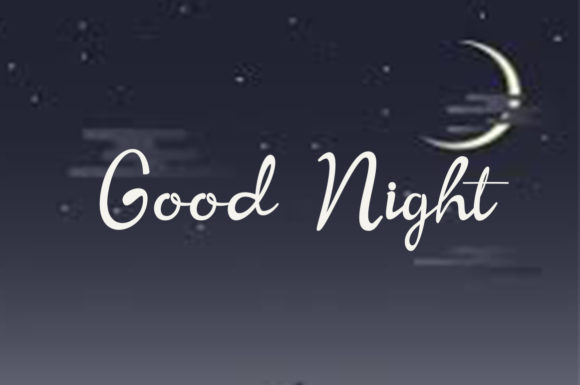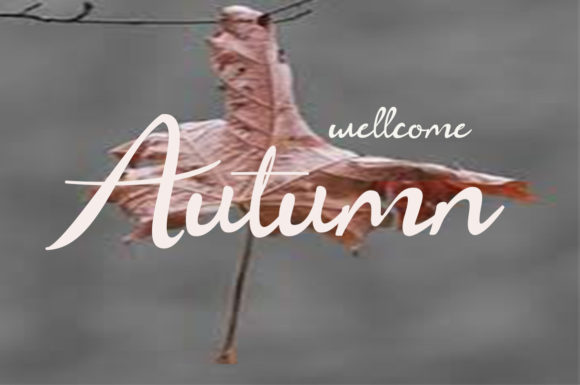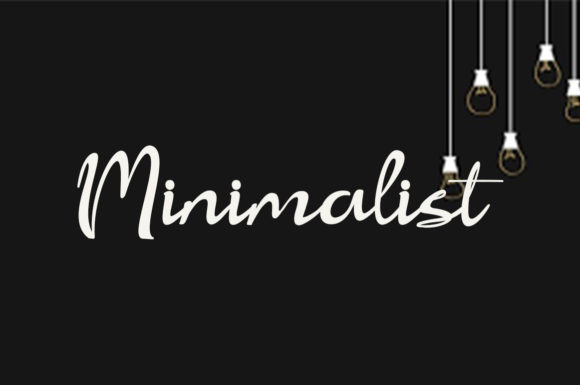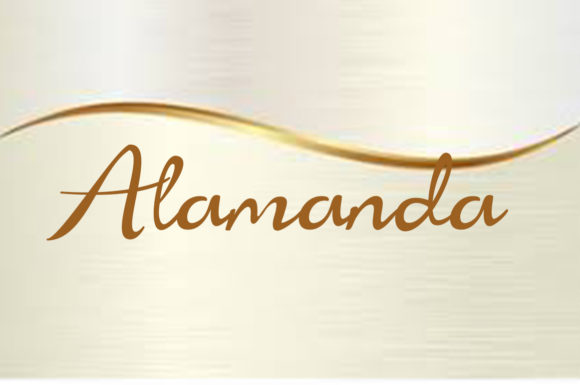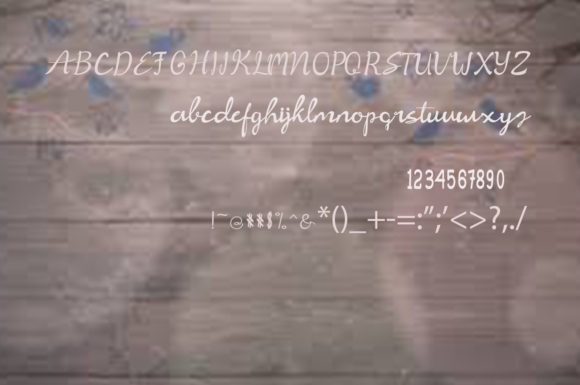
Discover the Sweet Charm of Camellia Font
Have you ever found yourself lost in the creative process, pouring your heart into a design, only to feel like something is missing? The perfect font can make all the difference. For designers, the right typography can elevate a project from ordinary to extraordinary.
That’s where the lovely Camellia Font comes in. This cursive script font is designed to add a touch of sweetness and elegance to any creation. With its dainty and refined style, Camellia Font is the perfect choice for designers looking to create beautiful and eye-catching designs.
Whether you’re a seasoned designer or just starting out, the Camellia Font is a valuable addition to your toolkit. Its versatility and charm make it a popular choice among designers, and it’s easy to see why. With the Camellia Font, you can create stunning designs that are sure to impress.
Camellia Font Key Features
- Font Family: Camellia, Camellia Bold, Camellia Italic, Camellia Bold Italic
- Unique Characteristics: Elegant, refined, and classic design with a hint of Asian influence, making it perfect for formal and sophisticated projects
- Language Support: Multilingual support for languages that use the Latin, Cyrillic, and Greek alphabets
Designer Review: Camellia Font
Overall, I’d say Camellia Font is a beautiful addition to any designer’s toolkit. Here are a few things that really stand out to me:
- ✨ The elegant, cursive script makes it perfect for creating a sense of luxury and sophistication in branding materials, such as logos and business cards.
- ✨ The numerous ligature options allow for a high degree of customization, making it a great choice for designers who want to add a unique touch to their projects.
- ✨ The font’s versatility means it can be used in a wide range of contexts, from formal invitations to playful signage.
- ⚠️ The font may be a bit too ornate for some projects, potentially overwhelming the viewer with too much detail.
- ⚠️ Some users have reported issues with character spacing, particularly when using the font at smaller sizes.
- ⚠️ The font’s large file size may be a concern for designers who need to work with limited storage or bandwidth.
Overall, I’d give Camellia Font 4 out of 5 stars. While it may not be perfect for every project, its unique style and customization options make it a valuable addition to any designer’s toolkit.
Tips for Getting the Most Out of Camellia Font
To get the most out of Camellia Font, try the following:
- Use it for formal or elegant designs, such as invitations, certificates, or business cards.
- Pair it with other elegant fonts to create a sophisticated look.
Camellia Font is commonly used for:
- Formal invitations and event materials.
- Business cards and corporate branding.
- Wedding stationery and
Alternatives to Camellia Font for Designers
1. Akkurat Font
Akkurat Font is a serif font that offers a more modern and sleek look compared to Camellia Font. It’s ideal for use in business and corporate settings where a professional tone is desired. Akkurat Font is more condensed than Camellia Font, making it suitable for smaller text sizes.
2. Georgia Font
Georgia Font is a classic serif font that is often used in print and digital media. It’s a great alternative to Camellia Font when a traditional look is required. Georgia Font is more readable in small sizes and is often used for body text. It’s also more versatile and can be used in a variety of settings.
3. Merriweather Font
Merriweather Font is a classic serif font that is known for its elegance and sophistication. It’s a great alternative to Camellia Font when a high-end look is required. Merriweather Font is more ornate than Camellia Font and is often used in luxury settings such as fashion and fine dining.
4. Playfair Display Font
Playfair Display Font is an elegant and luxurious serif font that is perfect for use in high-end settings. It’s a great alternative to Camellia Font when a touch of sophistication is required. Playfair Display Font is more ornate and decorative than Camellia Font and is often used in fashion, beauty, and luxury settings.
How do I access the advanced typographic features of Camellia Font?